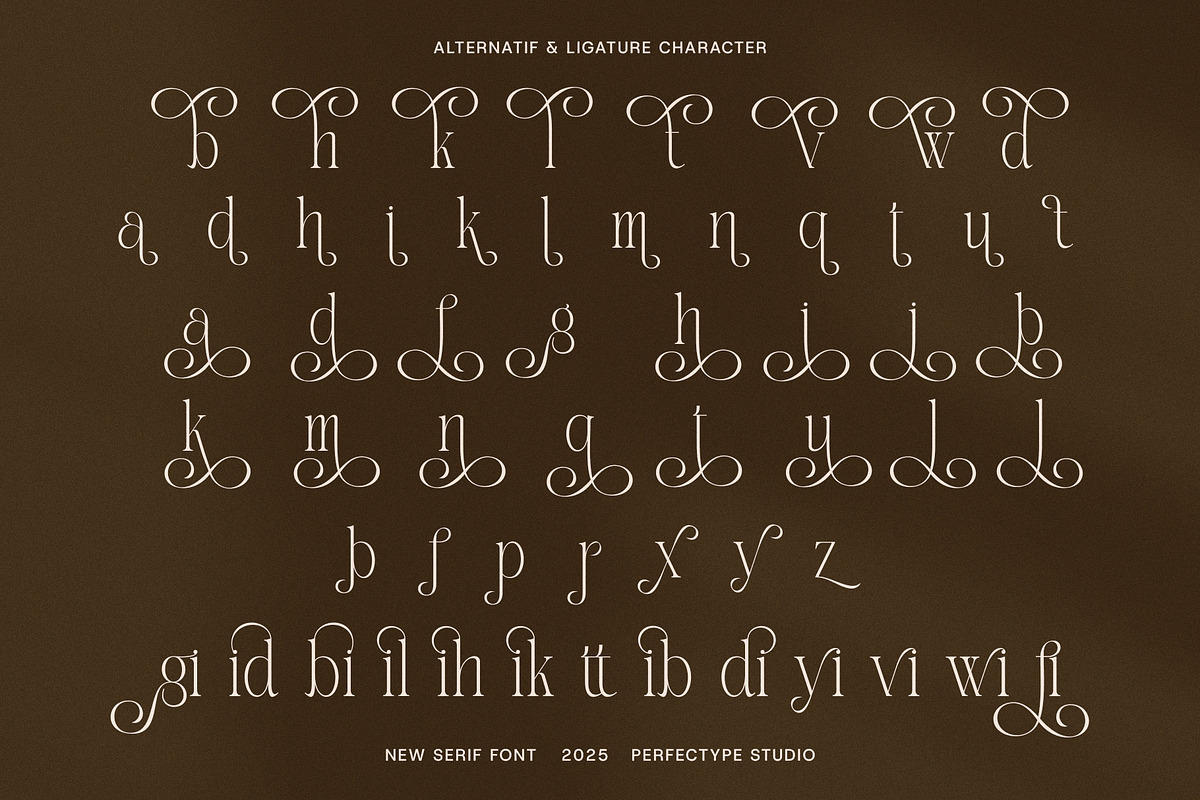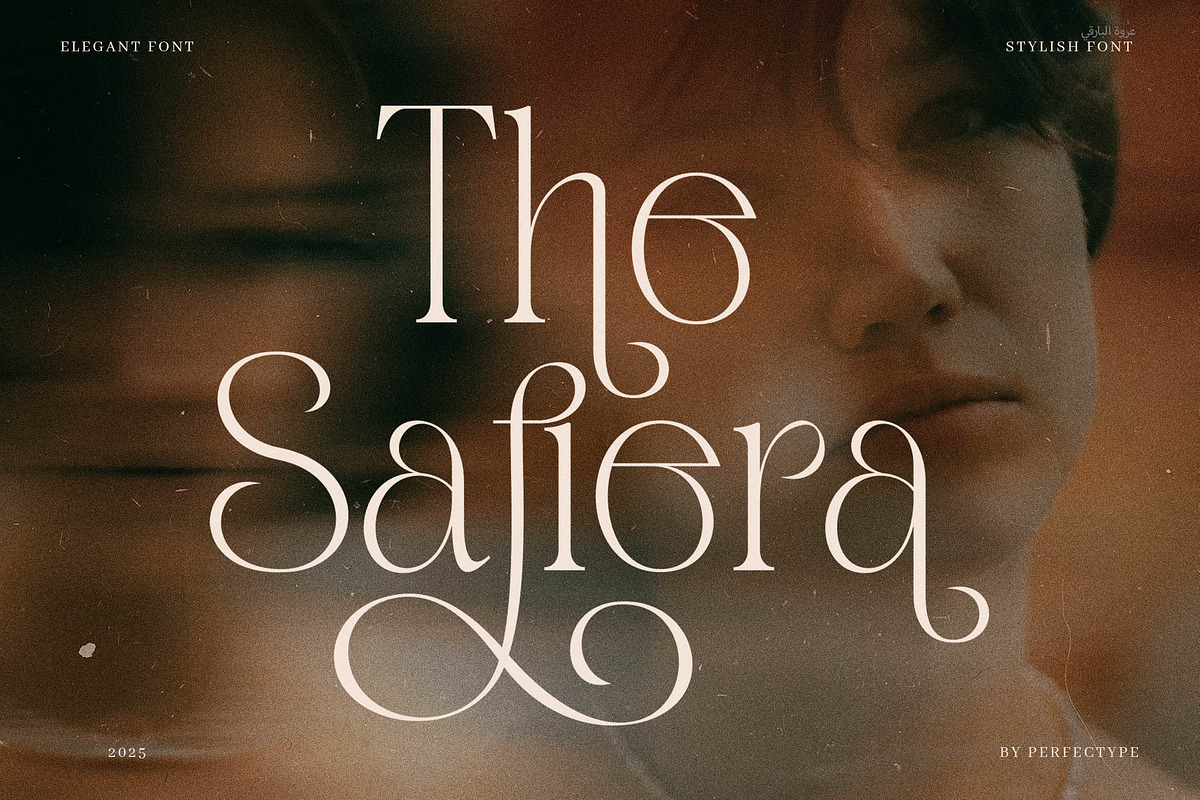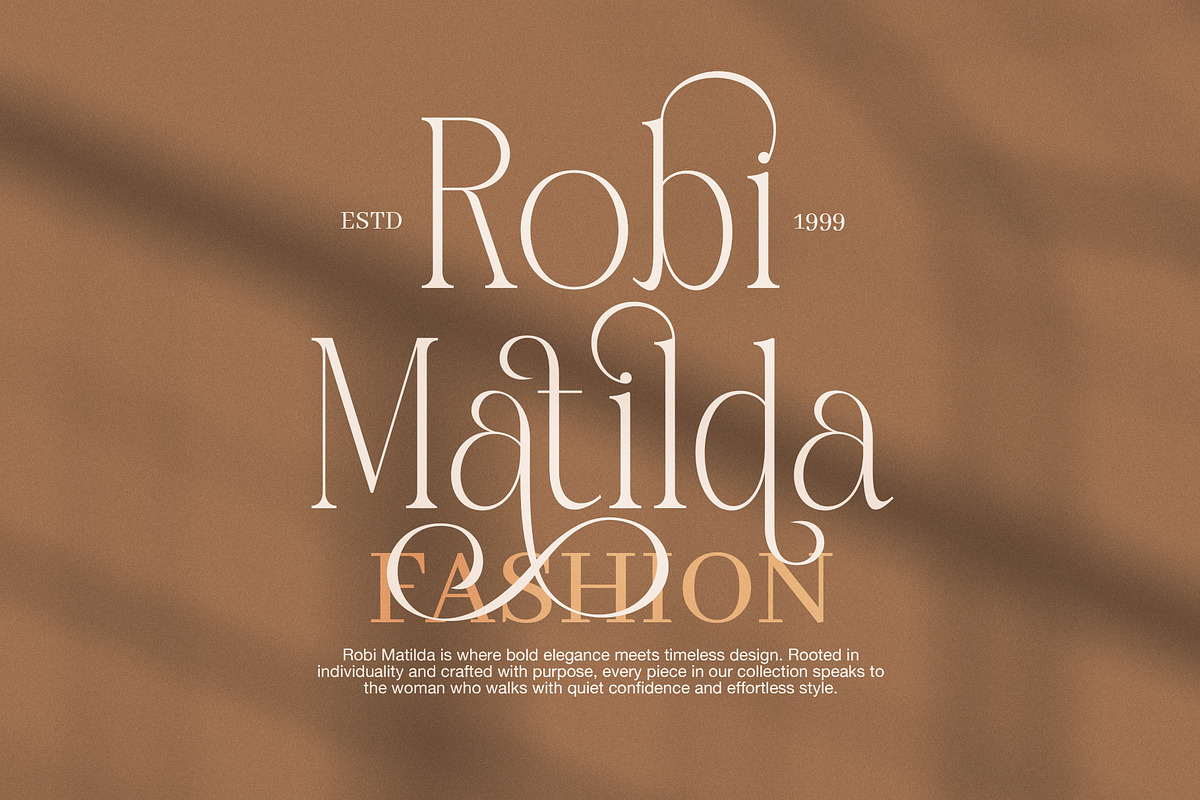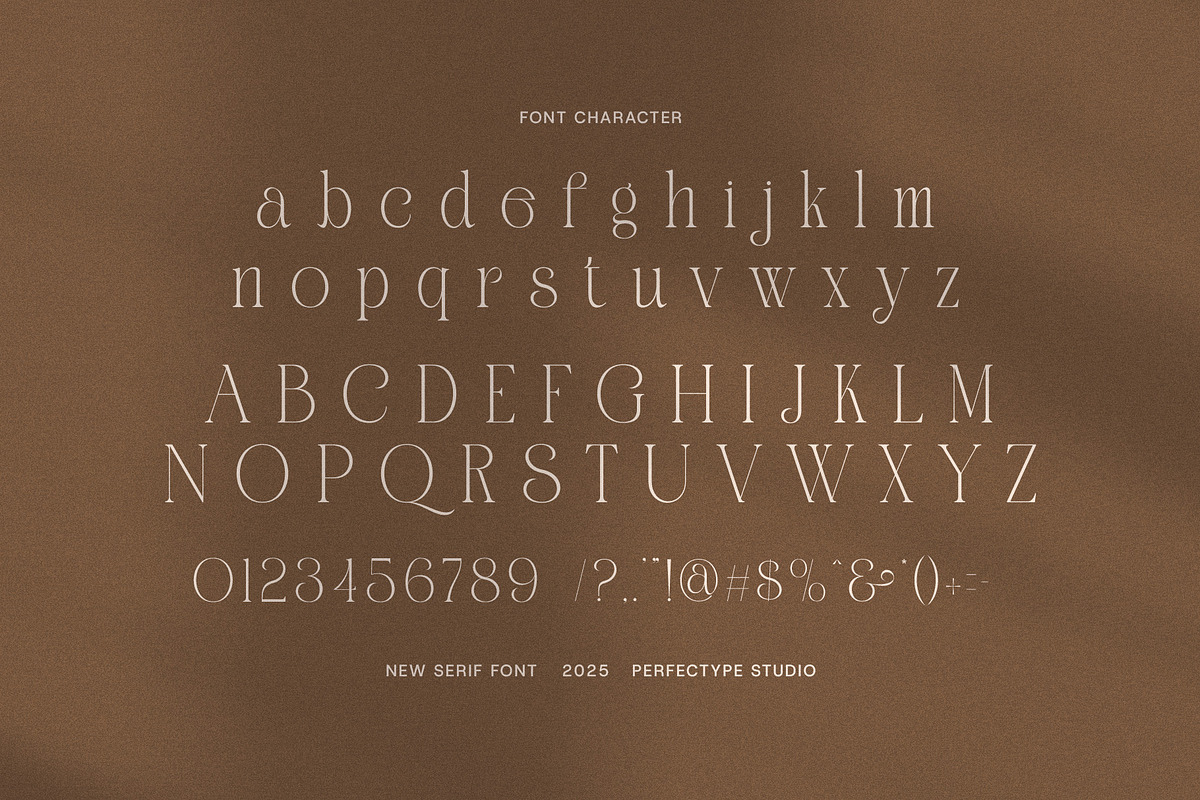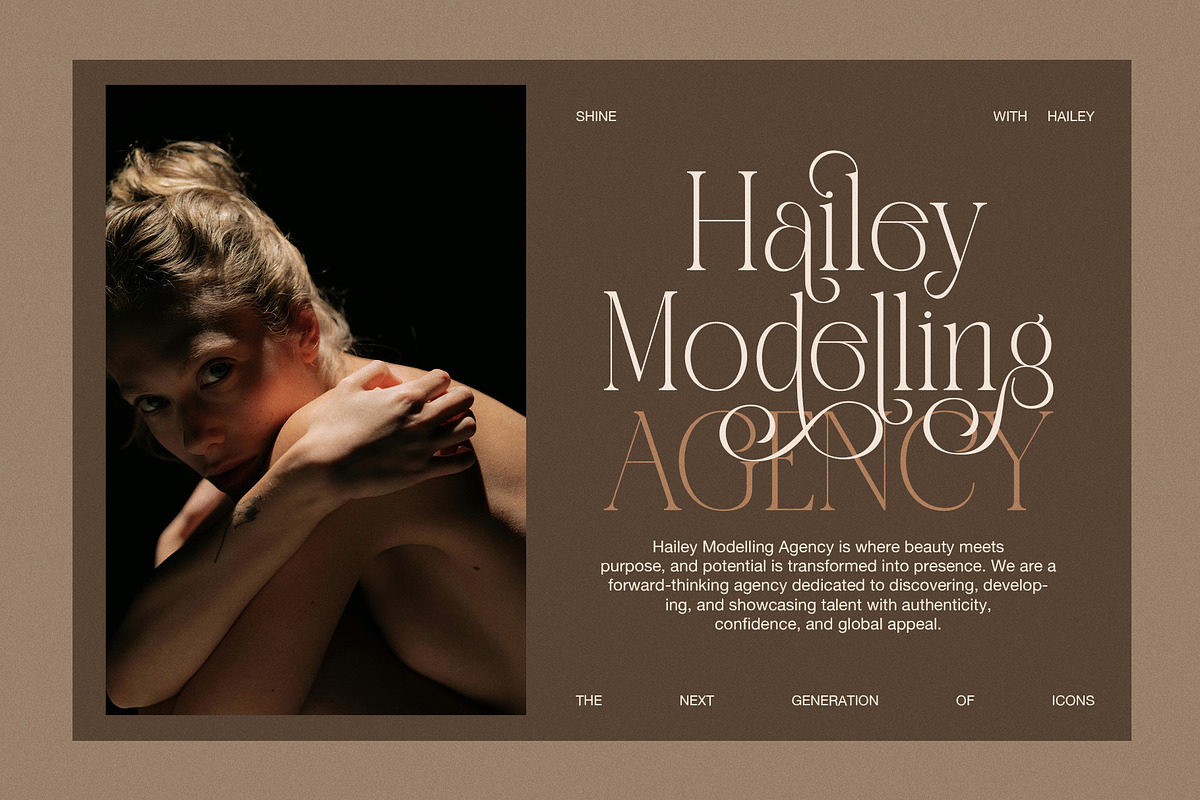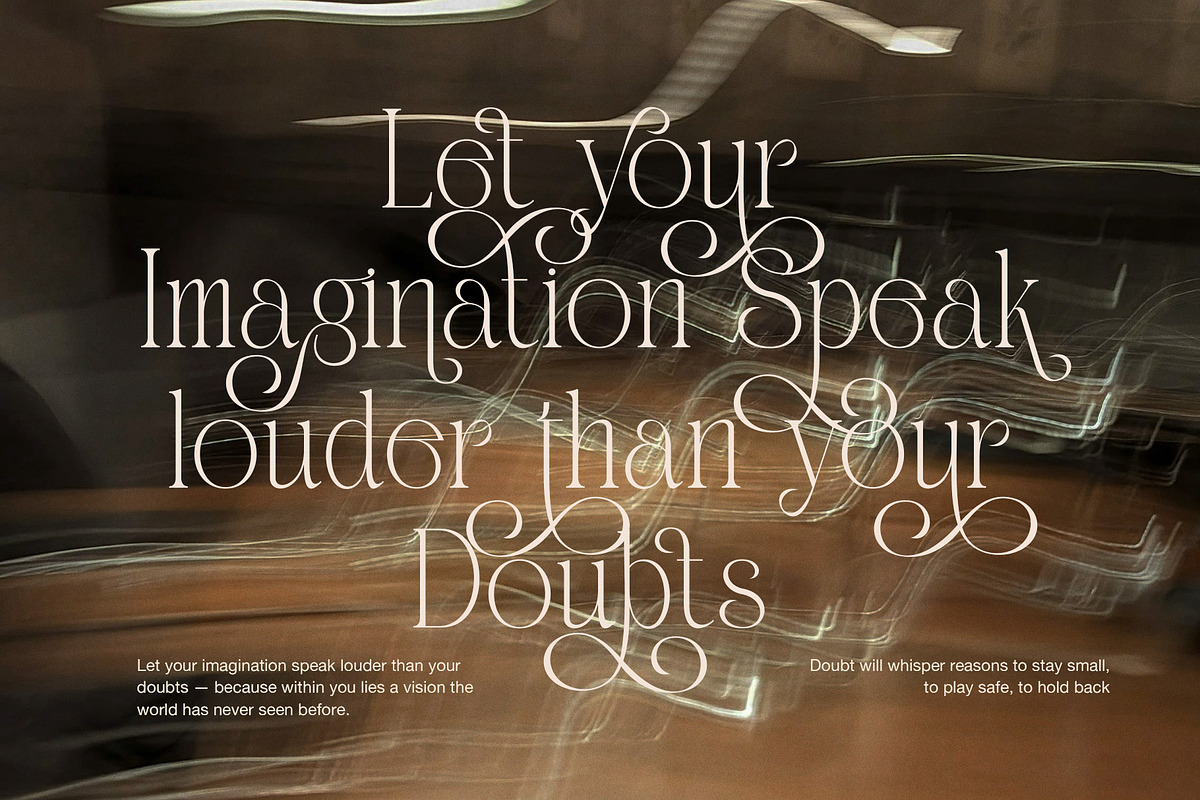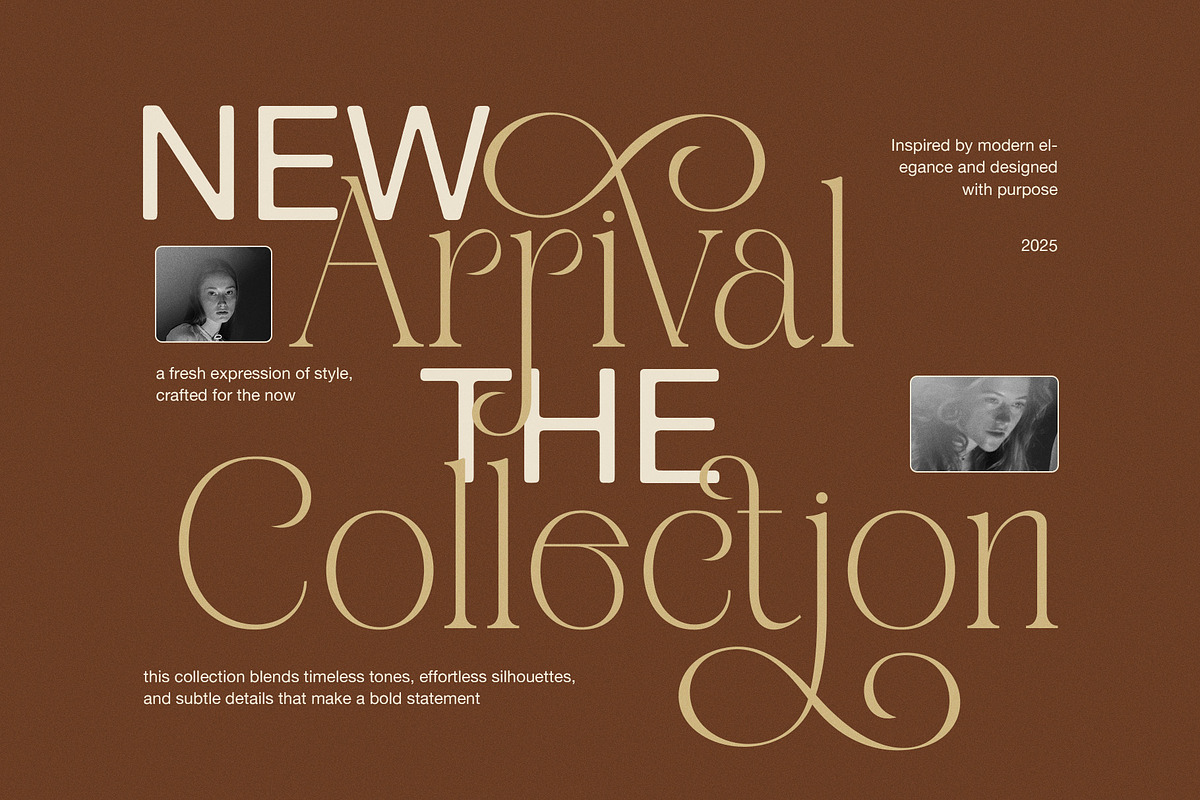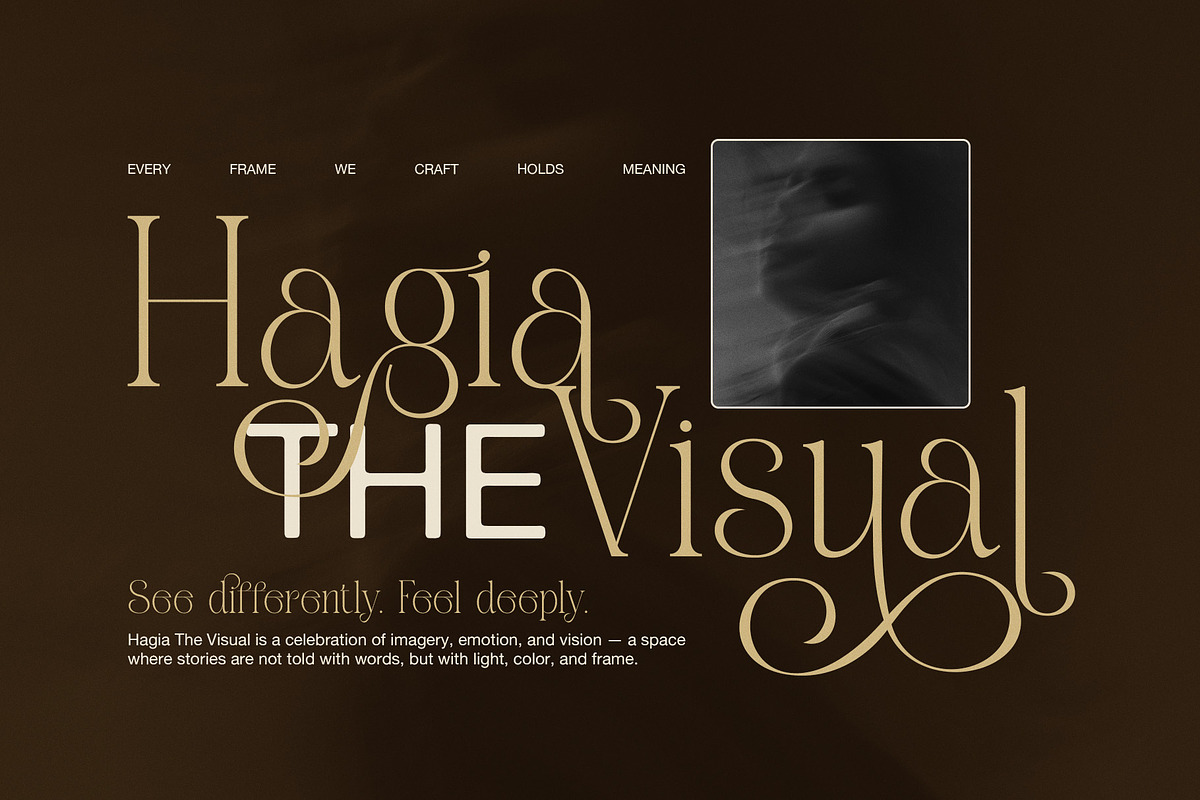
The Safiera Elegant Serif Font
The Safiera Serif font is a beautiful mix of classic style and modern design. Because of this, it fits many creative projects perfectly. Whether you create branding, editorial layouts, wedding invitations, or packaging, this serif font gives your work a clean and stylish look. Also, it makes your text easy to read and looks professional.
This font has clear lines and smooth curves. So, it feels fresh but still elegant. Plus, it works great for headlines, body text, and logos. This means you can use it in many different ways. The Safiera Serif also comes with ligatures and alternate styles. These extras let you add a special touch to your designs.
Since it balances old and new styles well, The Safiera Serif suits fashion brands, luxury items, wedding designs, and business logos. Therefore, it helps your work look trustworthy and classy. Your project will catch the eye with a soft yet strong look.
Here are some key features of The Safiera Serif:
Classic serif look with a modern feel
Easy to read for many uses
Great for branding, editorial, packaging, and invitations
Includes ligatures and alternate styles
Works well in print and online
Also, this font pairs nicely with other fonts. This makes your design work even more flexible. It adds a timeless, graceful look without losing clarity. Whether you are a designer, marketer, or business owner, The Safiera Serif helps you share your message with style and ease.
Choosing The Safiera Serif means your designs stay fresh, clean, and professional. Its style and usefulness make it a great choice for many projects. Try it today and give your work a smooth and polished finish.